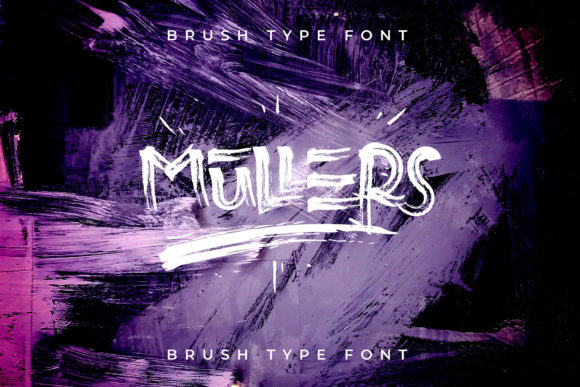
In a realm of monotony, where typefaces blend together like whispers in the wind, there emerges a font that shatters the mundane and ignites the imagination - Mullers Font. A creation of LogoGreat, this masterpiece belongs to the esteemed family of display fonts, a class reserved for those that command attention and evoke emotion. With its very essence, Mullers Font Brush forges an unbreakable bond with the world of art, becoming the ultimate weapon in the arsenal of designers and typographers.
Mullers Font Brush, a font endowed with the power to transform the ordinary into the extraordinary awaits you to unleash its magic upon your creative endeavors. Prepare to embark on a journey where your designs transcend the boundaries of convention, reaching heights of brilliance that were previously unimaginable with ordinary fonts. Mullers Font Brush beckons you to seize this opportunity to elevate your work to an echelon of excellence, leaving behind the mundane and embracing the realm of the truly exceptional.
With Mullers Font at your disposal, your creations will radiate an aura of sophistication and uniqueness that will set you apart from the masses. Its meticulously crafted strokes, sharp details, and captivating rhythm will breathe life into your designs, captivating audiences and leaving an indelible mark on their minds.
Embrace the versatility of Mullers Font Brush and witness the limitless possibilities that await you. Create logos that exude power and professionalism, t-shirts that speak volumes, websites that radiate elegance, hoodies that ooze style, and print and digital media that mesmerizes. Let your imagination soar as you experiment with this remarkable font, discovering hidden depths of creativity that you never knew existed.
Do not allow yourself to be confined by the limitations of ordinary fonts. Choose Mullers Font Brush and unlock a world of endless possibilities. Its captivating nature will ignite a fire within you, propelling your designs to new heights and leaving a lasting impression on all who encounter them. Experience the transformative power of Mullers Font Brush and witness the evolution of your creative genius.